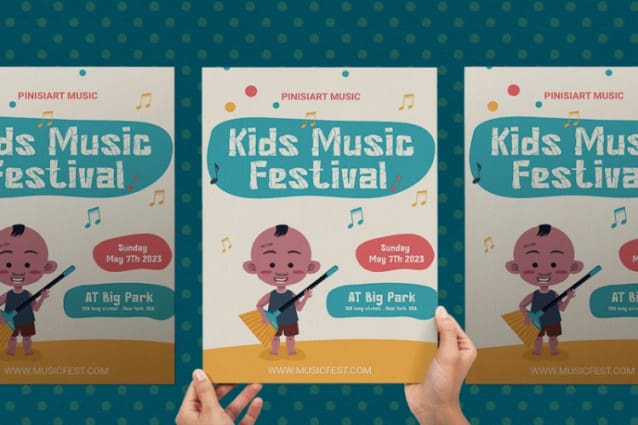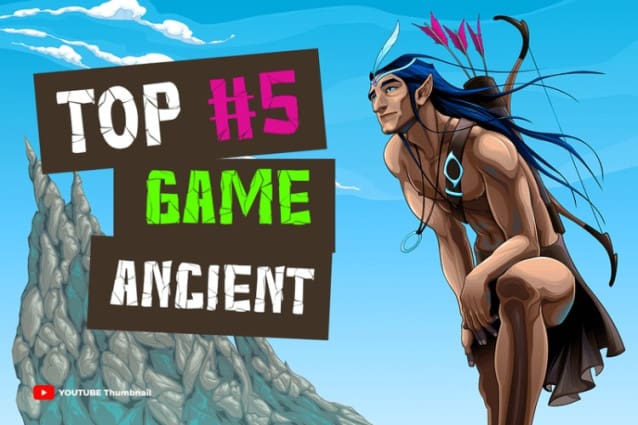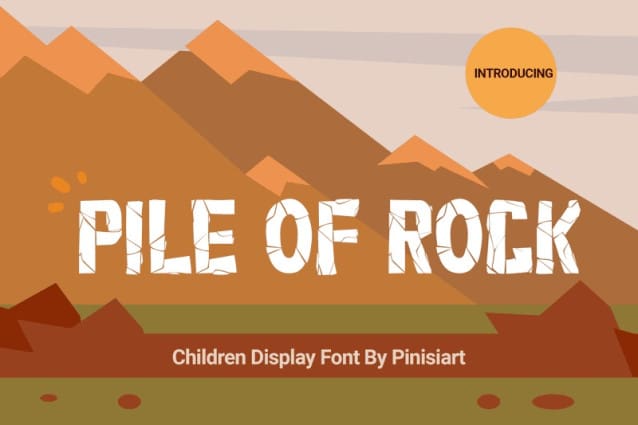
Pile Of Rock Font
Pile of Rock Font – perfect for all your children’s display needs! This fun and versatile font is sure to delight with its cartoon and comic-inspired design. As a sans-serif display font, “Pile of Rock” is easy to read, making it a great choice for school projects, movie titles, and YouTube videos.
With its cute and funny style, this font is also ideal for Instagram posts and other social media content. Whether you’re creating content for kids or just looking for a whimsical touch, “Pile of Rock” has got you covered.
But what really sets “Pile of Rock” apart is its organic and natural look. The font comes with plenty of nature foliage and floral elements, adding an extra dimension to your designs. Plus, this font is perfect for all kinds of projects that require a natural or outdoorsy feel.
So why not add some fun and flair to your designs with “Pile of Rock”? With its unique blend of cartoon, comic, and cute styles, this font is sure to be a hit with kids and adults alike. Try it out today and see how it can elevate your projects to the next level!